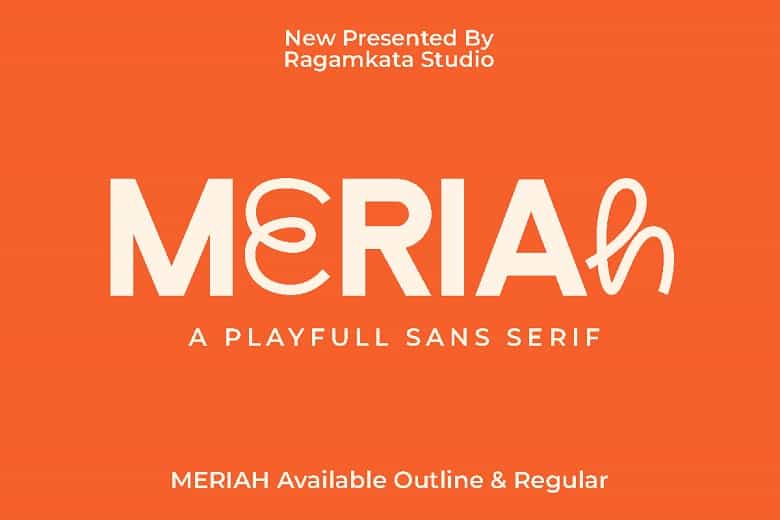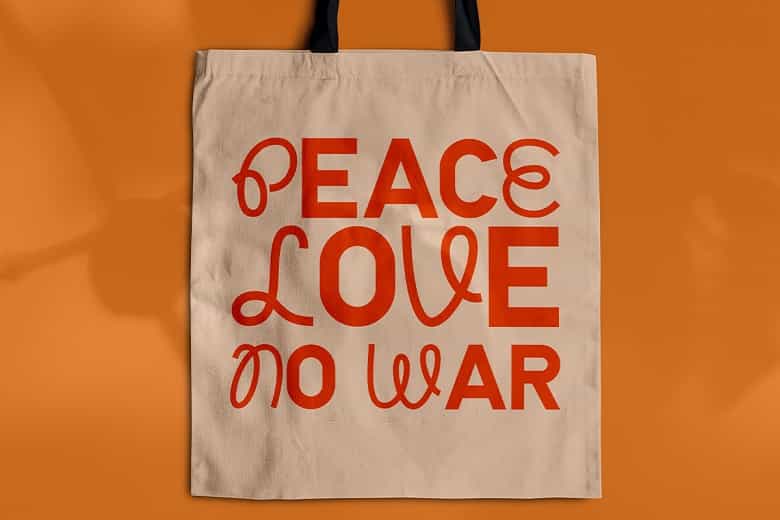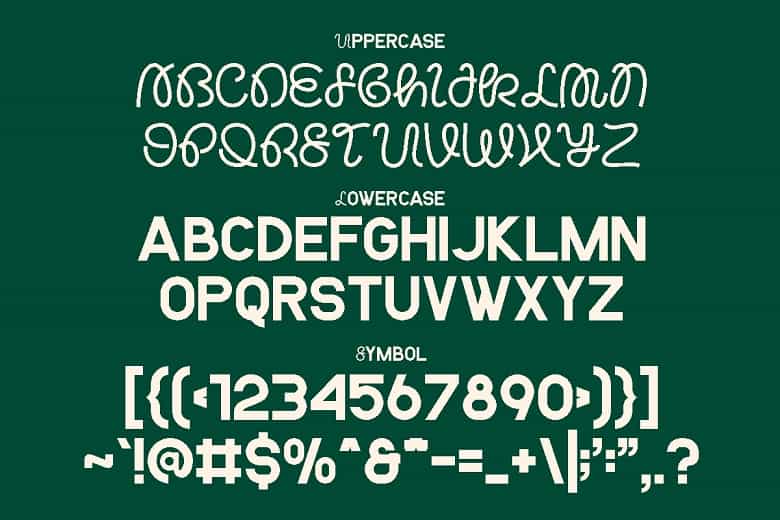
Meriah is a cross between two styles of font – sans and script, and is therefore experimental. contain two fonts that are totally different in looks but make this font special and different from the others. This font is the best for your projects like poster, logo, branding, social media, book, magazine, and many more.